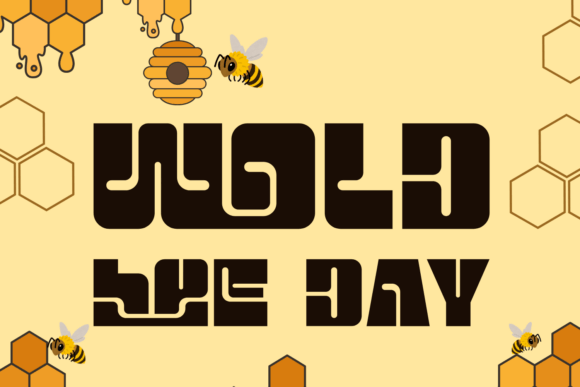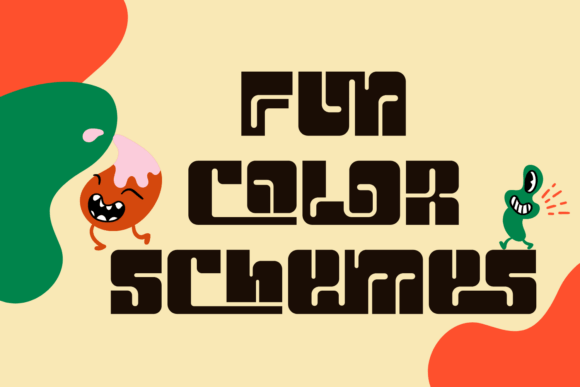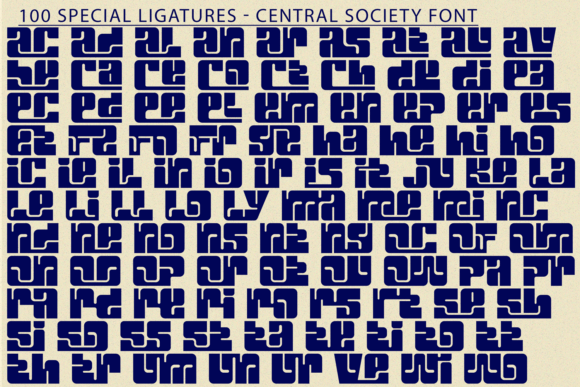
Introducing Central Society Font: The Ultimate Display Font for Creative Designs
Are you tired of using the same old fonts in your designs? Look no further than Central Society Font, a playful and cheerful display font that combines boldness with a condensed style. This versatile font is perfect for adding a touch of personality to your designs, whether you’re working on a modern or vintage project.
A Font that Has it All
Central Society Font is more than just a font – it’s a comprehensive typography solution. With everything you need to create stunning typography, from headline fonts to body text fonts, all in one place, you can easily create cohesive and visually appealing designs. The font includes a range of features, such as:
• Bold and condensed style: Perfect for making a statement and grabbing attention
• 100 ligatures: Add a touch of elegance and sophistication to your designs
• Alternate characters: Provide variety and flexibility in your typography
• Numbers, punctuation, and language support: Ensure that your designs are clear and readable, no matter the language or content
Built with OpenType Features
Central Society Font was built with OpenType features, making it a highly versatile and customizable font. With OpenType, you can easily access advanced typographic features, such as ligatures, stylistic alternates, and more. This means that you can tailor your typography to suit your design needs, whether you’re working on a logo, headline, or body text.
Perfect for a Range of Design Applications
Central Society Font is perfect for a range of design applications, including:
• Logotype and branding: Create a bold and memorable brand identity with this eye-catching font
• Title and packaging design: Add a touch of personality and whimsy to your packaging and title designs
• Graphic elements and illustration: Pair Central Society Font with graphic elements, such as illustrations and photography, for a unique and visually appealing design
Easy to Pair with Other Design Elements
One of the best things about Central Society Font is how easily it pairs with other design elements. Whether you’re working with illustrations, photography, or graphics, this font complements a range of styles and design aesthetics. This makes it perfect for designers who want to create cohesive and visually appealing designs that stand out from the crowd.
Modern and Vintage Designs
Central Society Font is a versatile font that works well in both modern and vintage designs. Its bold and condensed style makes it perfect for modern designs that require a statement piece, while its playful and cheerful vibe makes it suitable for vintage designs that require a touch of whimsy.
What Designers and Crafters are Saying
Don’t just take our word for it – designers and crafters are raving about Central Society Font. With its unique blend of boldness and playfulness, this font is quickly becoming a favorite among creative professionals. Whether you’re working on a personal project or a client brief, Central Society Font is the perfect choice for designers who want to add a touch of personality to their designs.
Get Creative with Central Society Font
• Playful and cheerful display font
• Bold and condensed style
• 100 ligatures, alternate characters, numbers, punctuation, and language support
• Built with OpenType features
• Perfect for logotype, branding, title, and packaging design
• Easily pairs with graphic elements, illustrations, and photography
• Suitable for modern and vintage designs